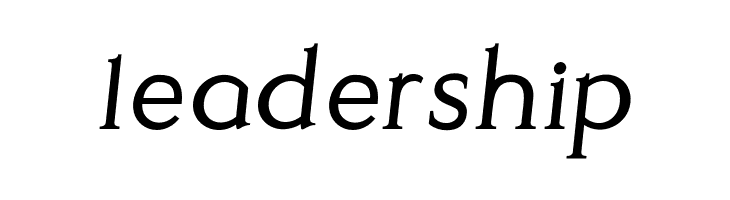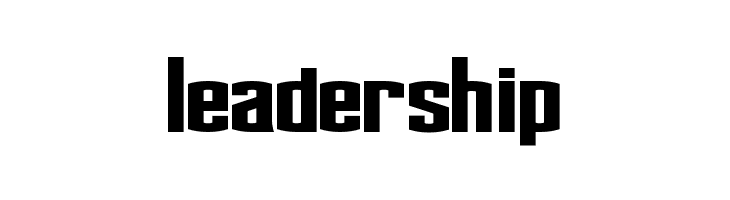
• PCap Terminal Italic
A sleek, modern italic font with a geometric and futuristic design.
• Pea Deva McQueen
A whimsical, hand-drawn collection of playful doodles and illustrations.
• Peace And Equality
A bold, geometric font with a futuristic and industrial aesthetic.
• Peace FOREVER
• PeachCuties
An elegant and flowing script font with intricate letterforms and graceful curves.
• Peachman
A bold, playful serif font with exaggerated serifs and a whimsical character.
• PEACOCK DEMO normal
A bold, geometric font with a modern and dynamic design.
• PEACOCK normal
A modern, geometric font with decorative elements and bold styling.
• Peanuts Gang Dings
• Pecattes
A dynamic and elegant script font with flowing, artistic letterforms.
• Peccatum
A bold, dripping font perfect for horror-themed designs.
• Peccatum
A bold, dripping font ideal for horror-themed designs.
• Pecot Lined Jewel
A bold, lined font with a textured and dynamic appearance.
• PeixesESubpeixes
• Pelkistettya todellisuutta
A rugged, textured font with a vintage, typewriter-like appearance.
• Peltinamitade
• Pencil Shading
A textured, pencil-shaded font with a hand-drawn, artistic style.
• PencilPeteFONT
A textured, hand-drawn font with a playful, informal style.
• Penetration Out Grunge
A bold, distressed grunge font with angular, sharp characters.
• Penny Lane Corroded Bold
• Pentagon
• People per square kilometer